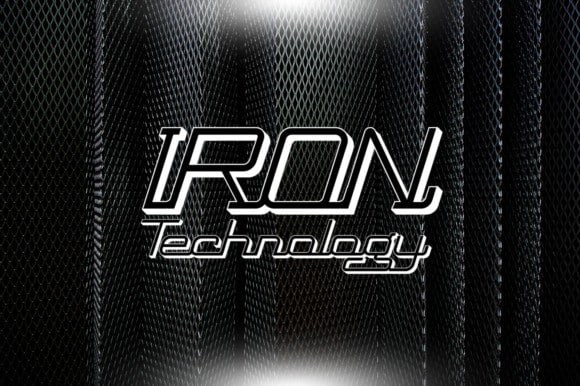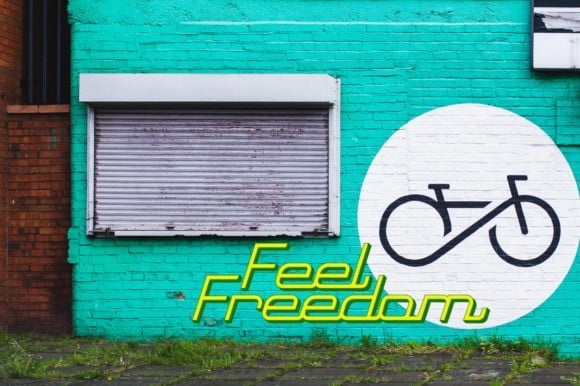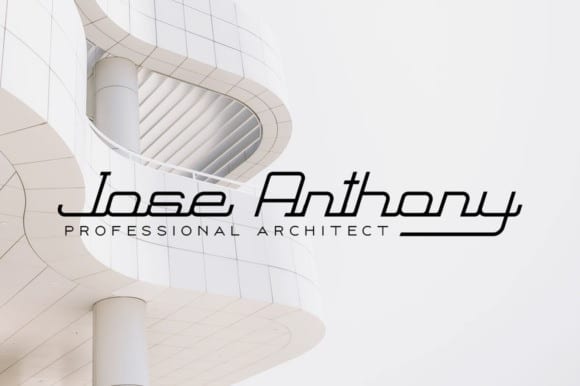
Retanglez Display Font
Retanglez Display Font is an experimental futuristic scifi typeface. It’s designed and shared by sartstudio. It celebrates abstract shapes in all their eclectic beauty. This masterfully designed display font is a true must-have.
Retanglez Display Font is unique and can be a standalone symbol if needed. Beam is perfect for titles, headlines, symbols, logo, and many more.